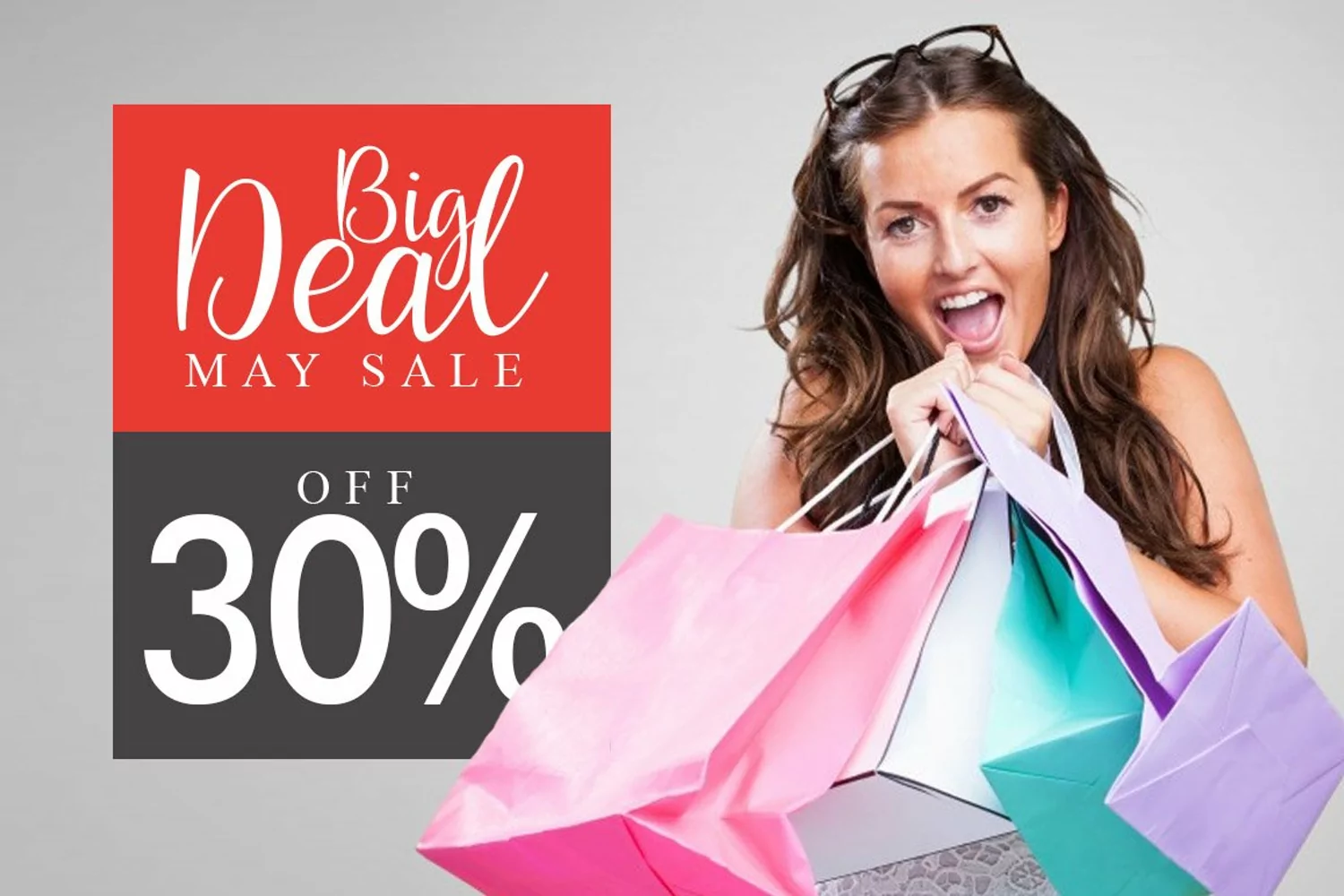
Hello everyone...Sanies Script is a beautiful handmade script font, modern calligraphy & fresh typeface. Sanies Script with 2 different style, Sanies Script Regular & Sanies Script Uno. Sanies Script suitable for logo, branding, greeting card, signature, poster and any design that you create.Sanies Script Features